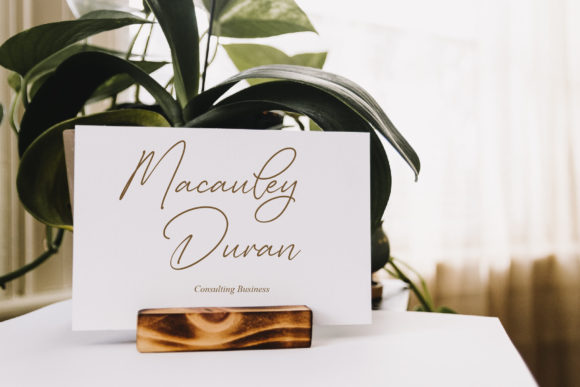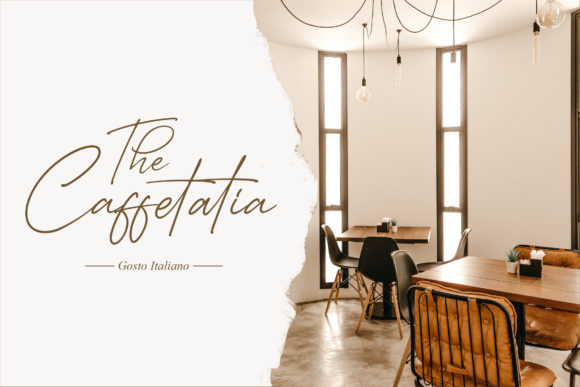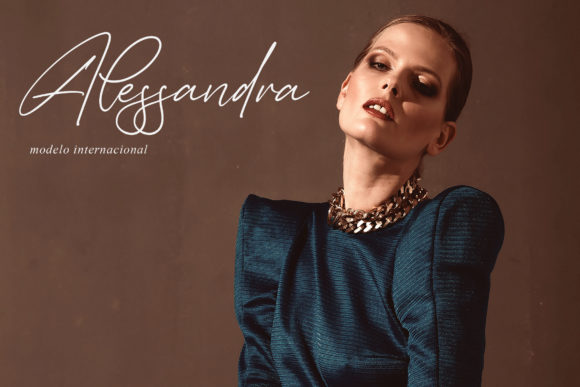
Introduction to Gabriela Smithasa Font
Imagine you’re working on a creative project, pouring your heart and soul into every detail, and you need that perfect finishing touch to make it truly special. That’s where the right font can make all the difference. For designers, finding the perfect font can be a game-changer, and that’s exactly what the Gabriela Smithasa Font offers.
With its romantic and sweet calligraphy style, this font is sure to add a luxury spark to any design project. The characters dance along the baseline, creating a beautiful, high-quality design element that’s perfect for any creative endeavor. Whether you’re working on a wedding invitation, a branding project, or a special event, the Gabriela Smithasa Font is an excellent choice.
Key Features of Gabriela Smithasa Font
- High-quality, professional font suitable for creative projects requiring a touch of elegance.
- Designed with attention to detail, ensuring a polished and refined appearance in any creative project.
Honest Review: Gabriela Smithasa Font
I recently had the chance to work with the Gabriela Smithasa Font, and I must say it’s been a game-changer for my creative project. As a designer, I’m always on the lookout for high-quality design resources that can elevate my work.
One of the things I love about this font is its versatility. It’s perfect for creating eye-catching headings, and the smooth lines give it a professional look that’s hard to beat. ✨ The font is also incredibly easy to read, making it a great choice for body text as well.
That being said, I do have a few minor complaints. The font can be a bit too ornate for some designs, and it may not be the best choice for projects that require a more minimalist look. ⚠️ Additionally, the font family is relatively small, so you may need to get creative with your font combinations.
- What works well:
- High-quality design with smooth lines
- Perfect for creative headings
- Easy to read
Overall, I’m really impressed with the Gabriela Smithasa Font. While it may have some limitations, its strengths far outweigh its weaknesses. If you’re looking for a high-quality font for your creative project, I’d definitely recommend giving it a try.
The Gabriela Smithasa Font is suitable for various creative projects such as logos, business cards, brochures, and social media graphics. Its high-quality design makes it an excellent choice for any design-related task.